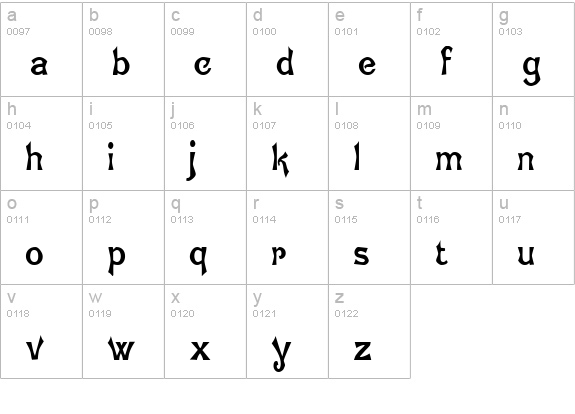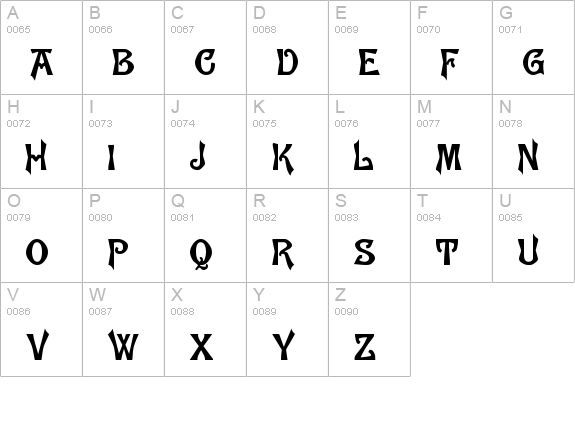
Bruges™ font is a stunning display typeface that exudes elegance and sophistication. With its intricate details and stylish curves, Bruges™ is perfect for adding a touch of luxury to your designs. This versatile font can be used for various projects such as branding, invitations, packaging, and more. What makes Bruges™ even more appealing is that it is available for free download at FontsMarket.com. This means you can easily access this beautiful font and use it in your projects without any cost. Don't miss out on the opportunity to enhance your designs with the timeless beauty of Bruges™ font. Download it today and elevate your creative work to the next level.